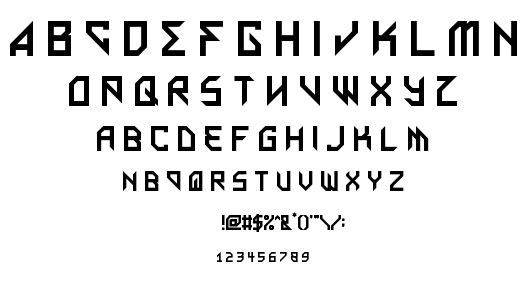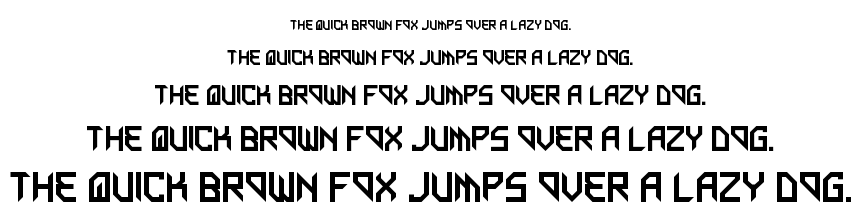
Free for all use, including commercial. Lower case and upper case letters are two separate alphabets – for maximum effectiveness, mix and match for things like titles.